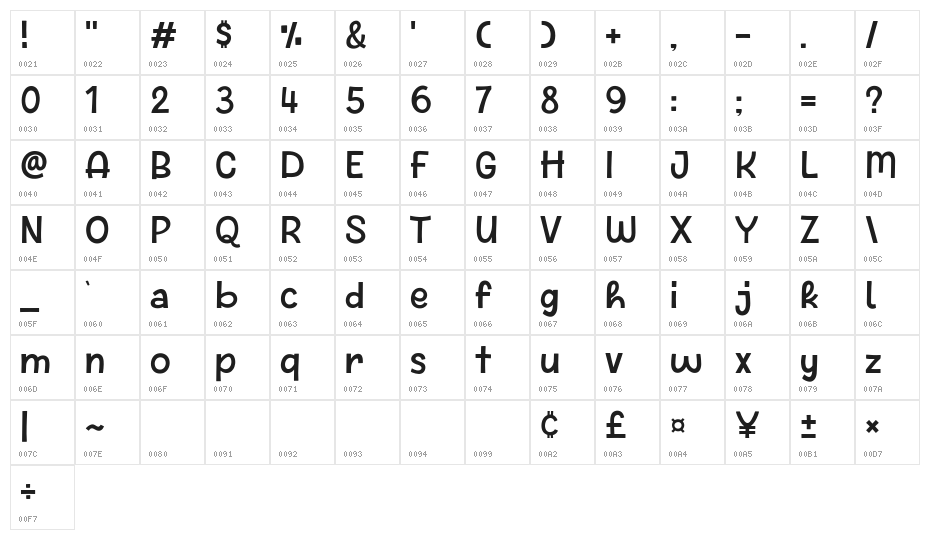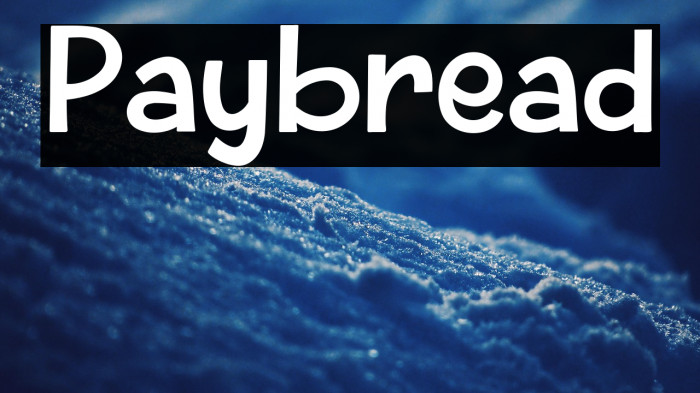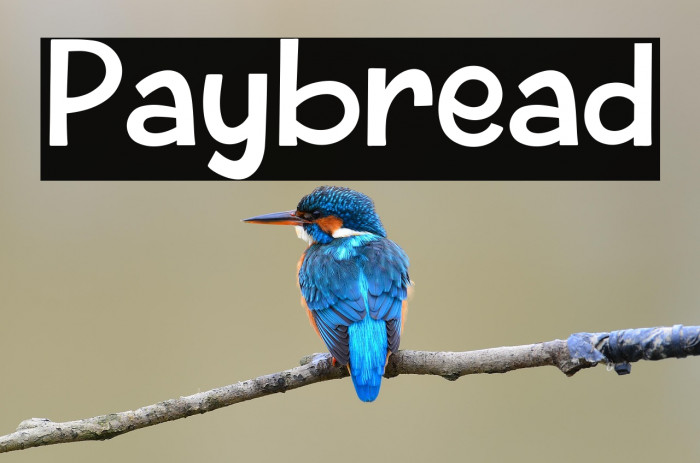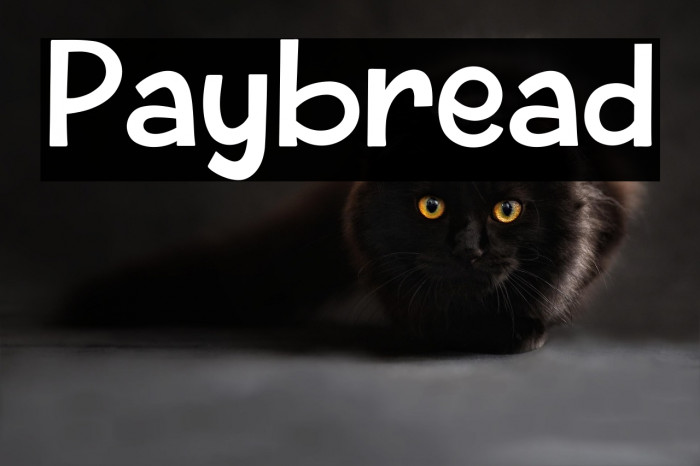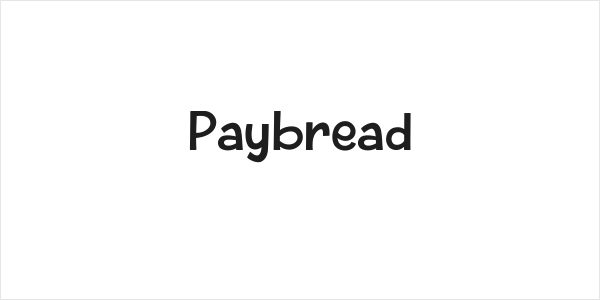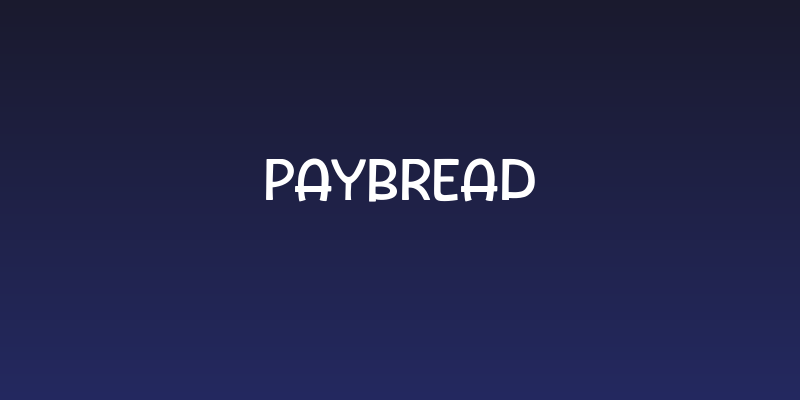
Paybread Font
Paybread Description
This playful and rounded font features a whimsical style with a friendly and approachable appearance. The characters are bold and slightly condensed, with a consistent stroke width that gives it a uniform look. The uppercase letters are tall and maintain a consistent height, while the lowercase letters have a gentle curve, adding to the font's charm. The numbers are clear and easy to read, matching the overall style of the alphabet. Special characters are included, maintaining the same playful aesthetic. This font is ideal for projects that require a fun and informal touch, such as children's books, playful branding, or casual invitations.
| Width | Condensed |
| Overall Style | Playful, Whimsical |
| Use Case | Headlines, Logos, Informal Text |
| Proposed Projects | Children's books, playful branding, casual invitations, greeting cards. |